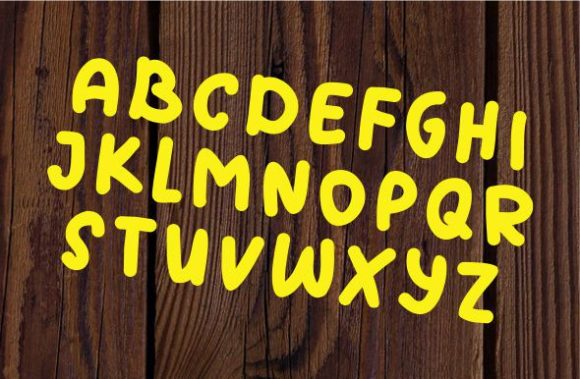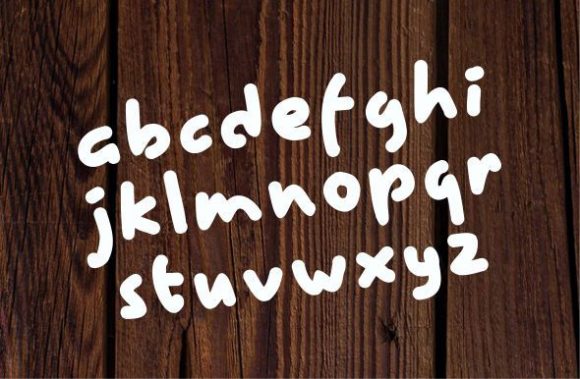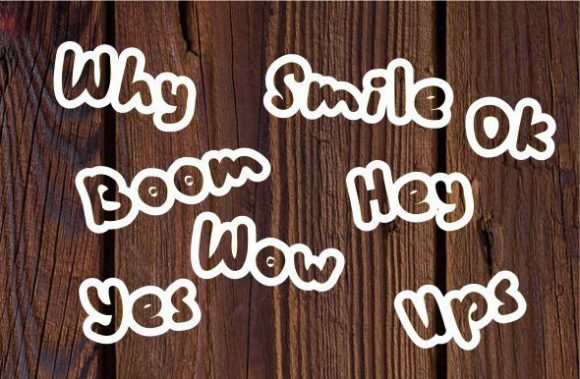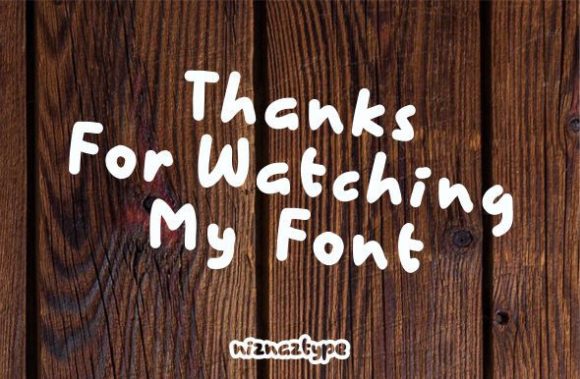
Westau Font
About Westau Font
Westau is a bold handwritten font, carefully handcrafted to become a true favorite. Its casual charm makes it appear wonderfully down-to-earth, readable and, ultimately, incredibly versatile.
This versatility means that this font can be used in a wide variety of applications from packaging, to social media posts- the only limit is your imagination!